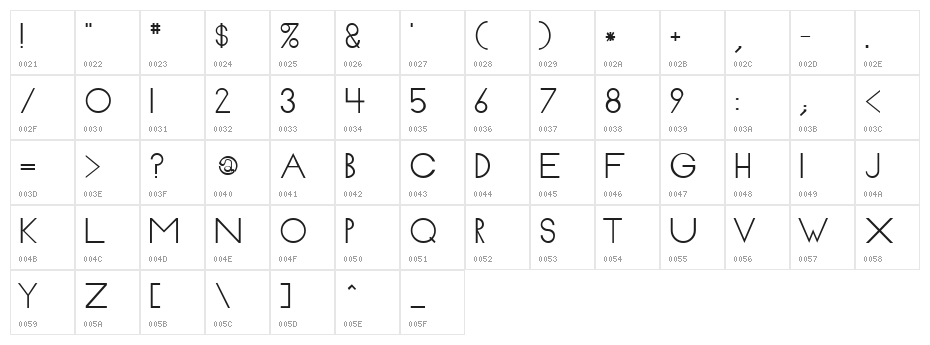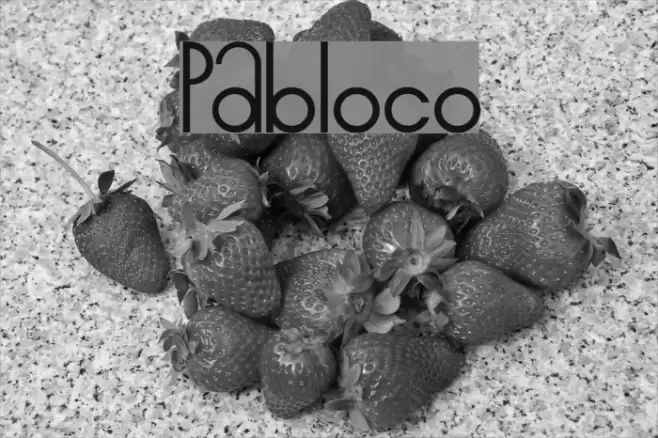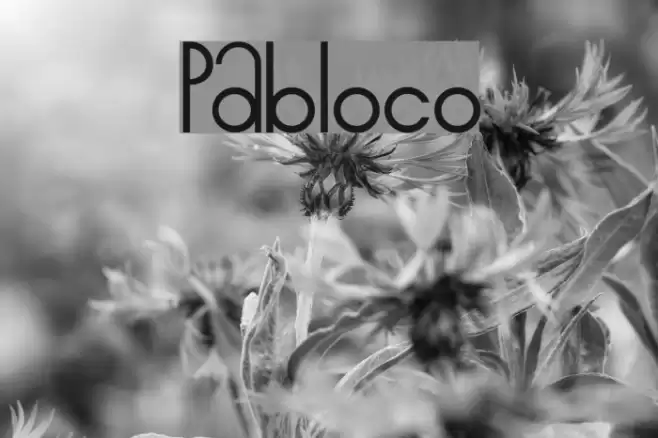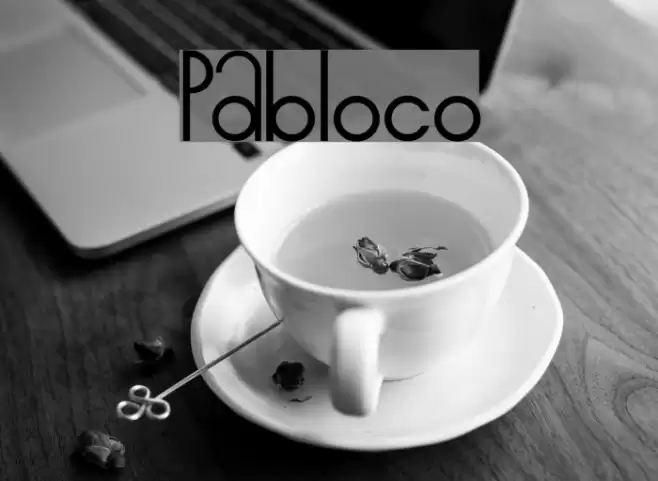
Pabloco Font
Pabloco Description
This font features a modern, geometric sans-serif style with clean lines and a minimalist aesthetic. The uppercase letters are bold and striking, with a consistent stroke width that gives them a uniform appearance. The lowercase letters maintain the geometric theme, with rounded forms and a slightly playful character. The numerals are clear and legible, matching the overall style of the alphabet. Special characters are designed with the same attention to detail, ensuring they integrate seamlessly with the rest of the font. The overall look is contemporary and versatile, suitable for a variety of design applications.
| Proposed Projects | Ideal for branding, advertising, and editorial design projects that require a modern and clean aesthetic. |